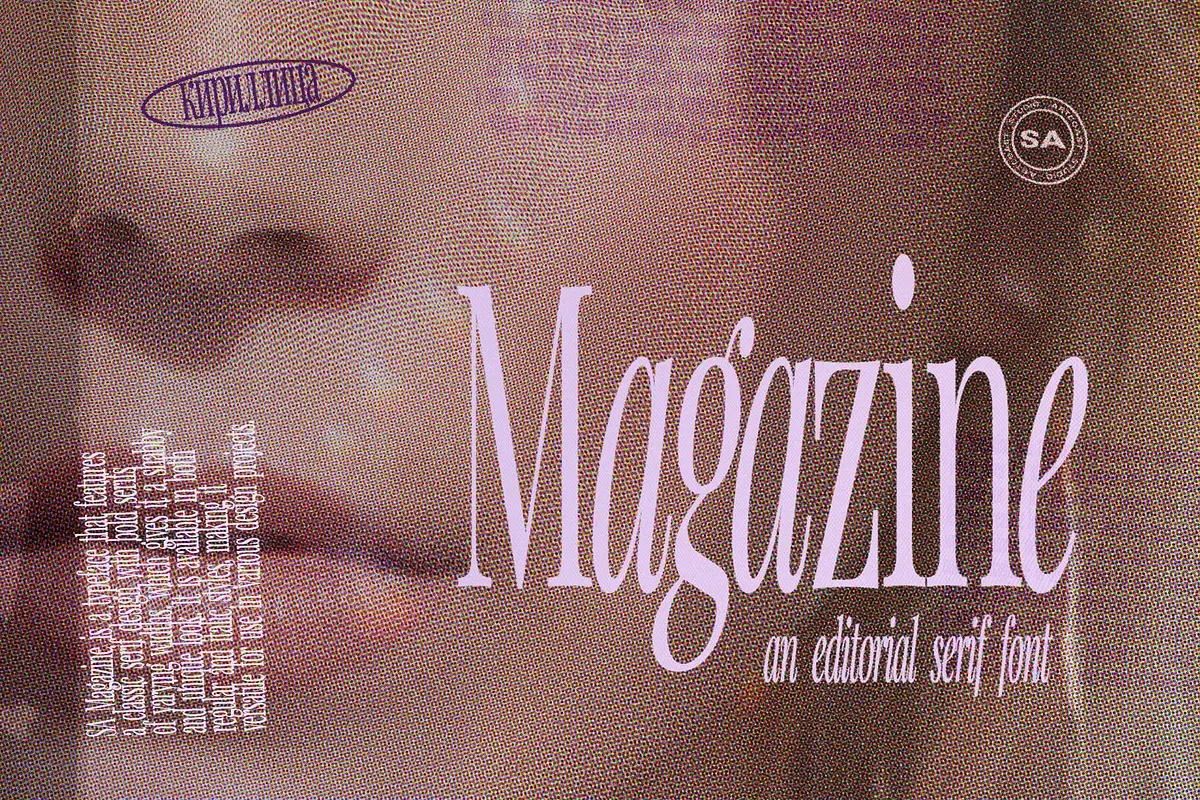
SA Magazine | Elegant Serif Font Free Download
The SA Magazine | Elegant Serif Font Free Download is a refined and sophisticated serif typeface designed to bring elegance and style to your designs. Perfect for editorial layouts, magazines, branding, invitations, and high-end packaging, this font adds a touch of luxury to any project.
With its classic serif details and clean, balanced letterforms, SA Magazine offers excellent readability and timeless sophistication. It includes uppercase and lowercase letters, numbers, punctuation, and multilingual support, making it versatile for various creative applications.